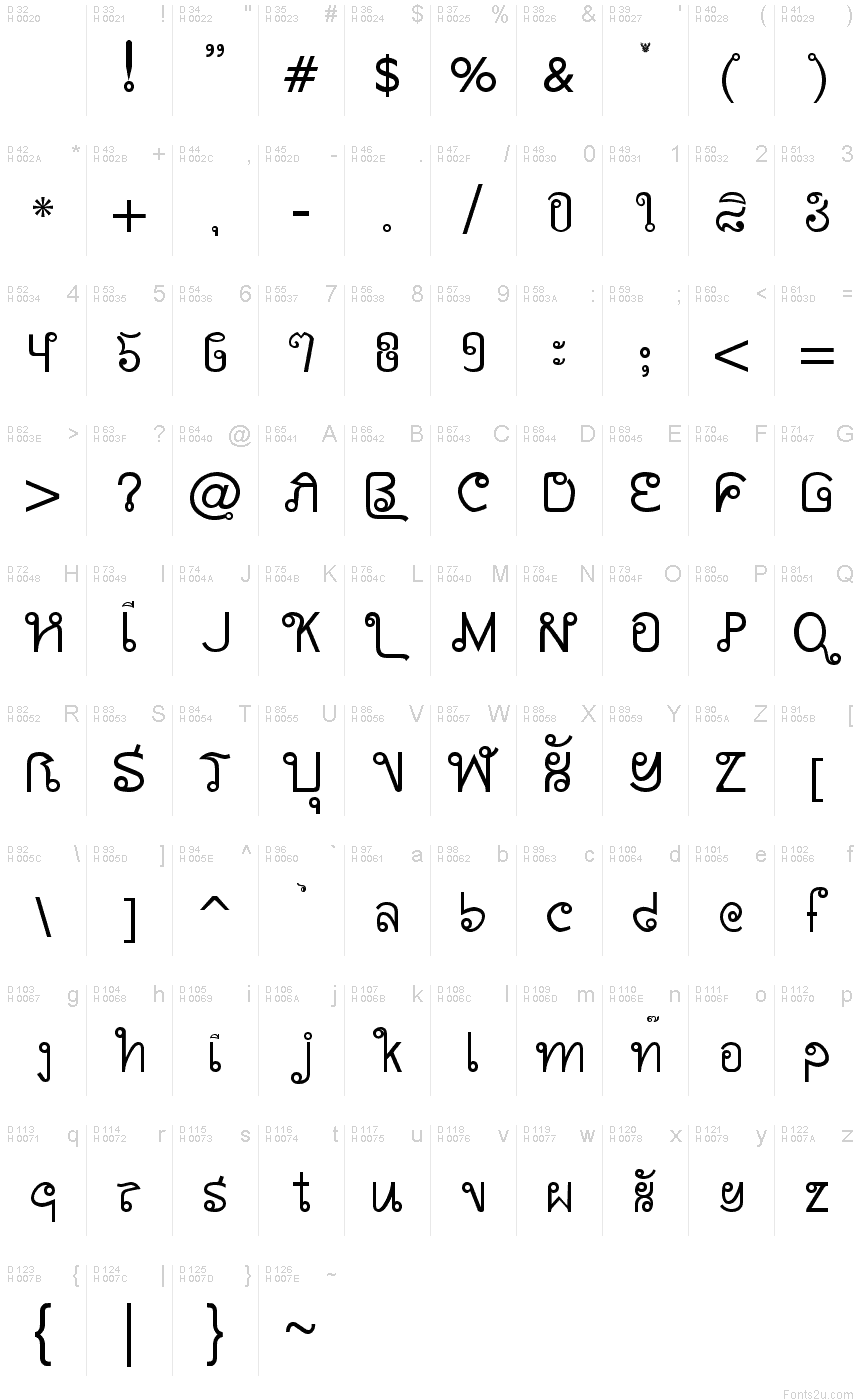
AW_Siam English not Thai
AW_Siam English not Thai font by Weygandt is a free Thai-inspired decorative typeface that gives Latin text a distinctly Southeast Asian rhythm. Rounded strokes curl into soft loops and little bead-like dots, creating an inky, hand-painted feel even when set cleanly on screen. It reads playful and exotic without turning into a gimmick, especially at larger sizes.
Using AW_Siam English not Thai, you’ll get quick atmosphere on Thai restaurant menus, street-food packaging, travel posters, spa branding, festival flyers, social headers, and storefront signage. This free font shines most in short titles and punchy labels—give it a bit of breathing room and avoid tiny body copy. Pair it with a calm sans like Inter or Helvetica to keep the layout grounded.